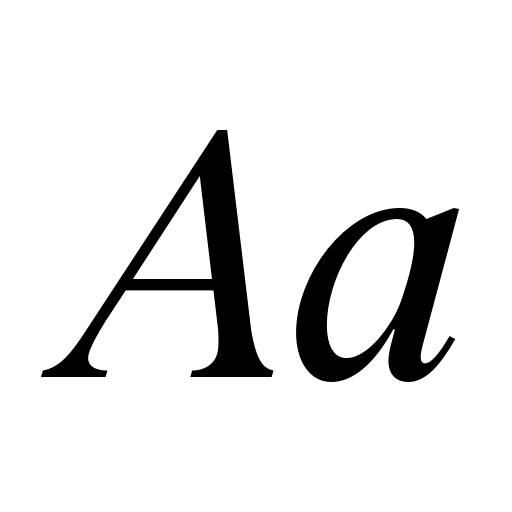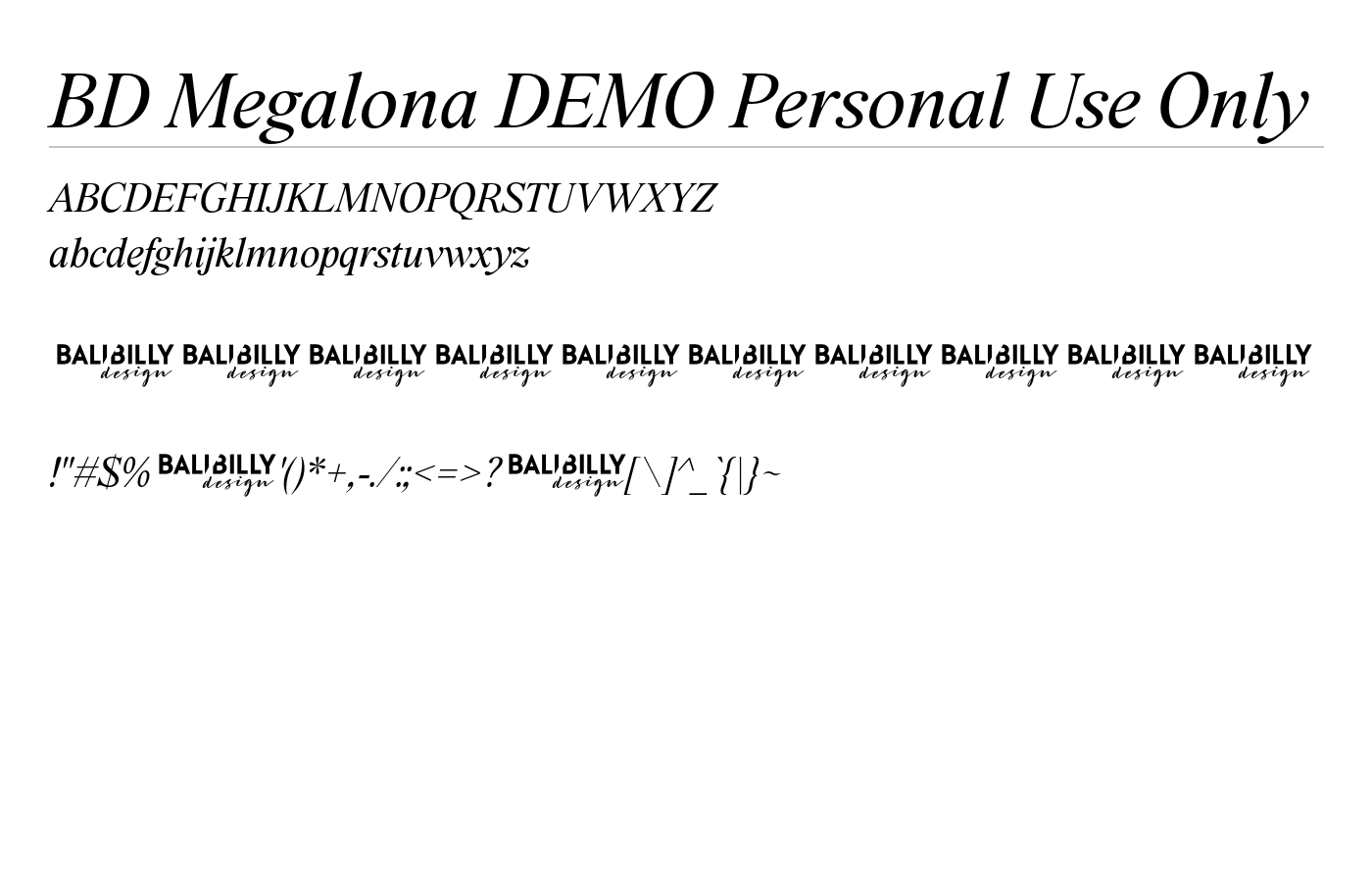
BD Megalona DEMO is a graceful serif font with a classic, italicized style that conveys elegance and sophistication. Its slender strokes and moderate contrast give it a refined, timeless feel, making it ideal for luxury branding, editorial use, and elegant invitations. This font’s clean letterforms and smooth curves are perfect for projects seeking a polished and stylish look.
BD Megalona DEMO Personal Use Only Font